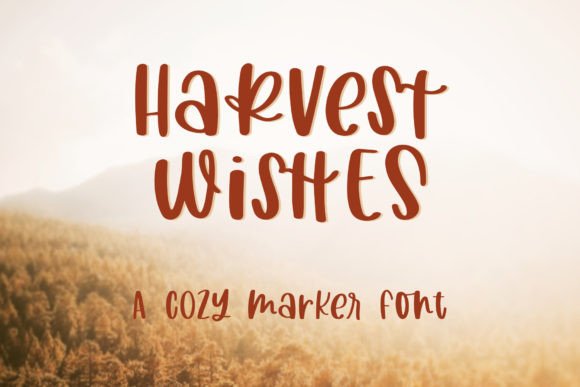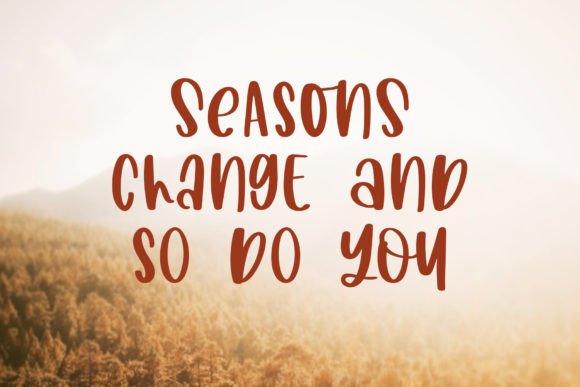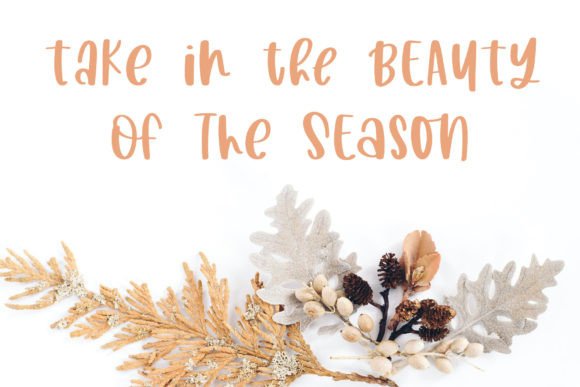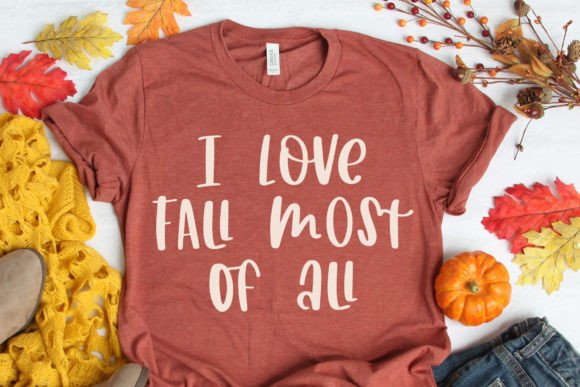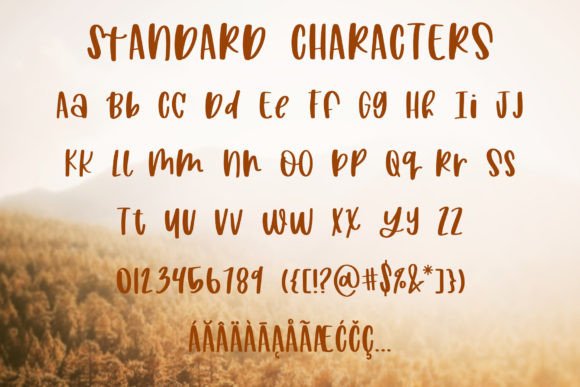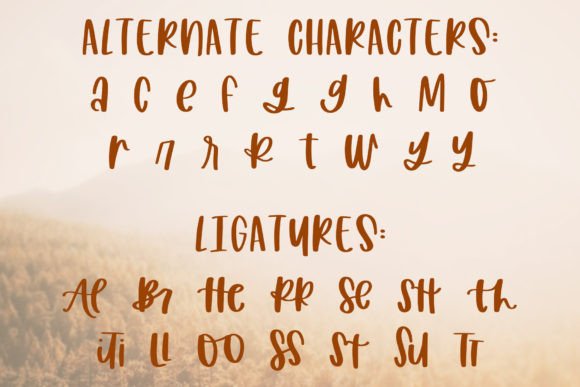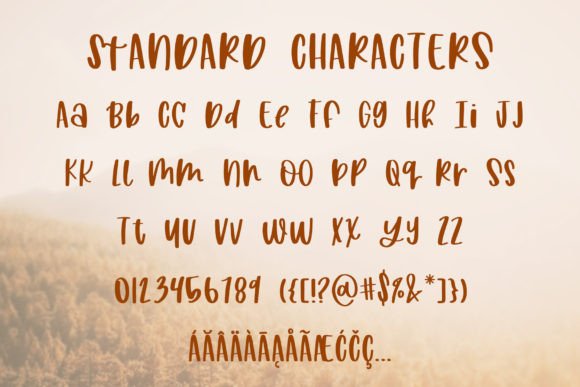
Harvest Wishes Font
What Is Harvest Wishes Font?
Harvest Wishes Font is a cozy handwritten marker typeface designed to bring warmth, personality, and a handmade feel to your creative projects. Each letter looks as if it were written by hand with a marker, offering natural texture and authentic charm. Whether you want to create something casual, friendly, or heartfelt, Harvest Wishes makes your design stand out effortlessly.
Its approachable style is perfect for designers who love clean, personal, and inviting typography.
Harvest Wishes is versatile enough to work across a wide range of applications. For example, it’s ideal for invitations, whether you’re designing birthday parties, baby showers, or casual gatherings. The handmade marker look feels personal and welcoming.
Greeting cards and thank-you notes instantly look more heartfelt with Harvest Wishes’ warm, friendly letters. Your messages will feel genuine and thoughtfully crafted.
Branding materials, from logos to business cards, benefit from the font’s relaxed style. It’s a great fit for creative businesses, artisan products, or brands that want to feel approachable.
Social media graphics, blog headers, and website banners stand out with Harvest Wishes’ playful charm, helping your content connect with audiences.
Product packaging, labels, and tags also feel more personal and unique when you use this handwritten marker font.
Why Should You Choose Harvest Wishes Font?
One of Harvest Wishes’ best qualities is its readability. Even with its marker texture and casual flow, every letter stays clear and legible at all sizes. Whether you’re designing a tiny label or a bold headline, your text will look polished and easy to read.
The font pairs perfectly with simple serif or sans-serif typefaces, giving you endless flexibility to create clean, modern layouts.
Designers love that Harvest Wishes looks great straight out of the box, saving time while delivering consistent, professional results.
Harvest Wishes Font adds warmth, authenticity, and friendliness to any project. Its smooth strokes and natural texture create a sense of connection that makes your designs feel personal and inviting.
Even minimalist layouts gain charm and personality with Harvest Wishes. Whether you’re crafting an invitation suite, a logo, or a social post, this font elevates your visuals effortlessly.
Using a premium handwritten font shows your commitment to thoughtful, high-quality design. Clients and customers will appreciate your attention to detail, helping you build trust and stand out.
Harvest Wishes Font is more than just a typeface—it’s a design tool that helps you share ideas with warmth, clarity, and style. From invitations and branding to packaging and digital content, this font adapts seamlessly to any project and leaves a lasting impression.